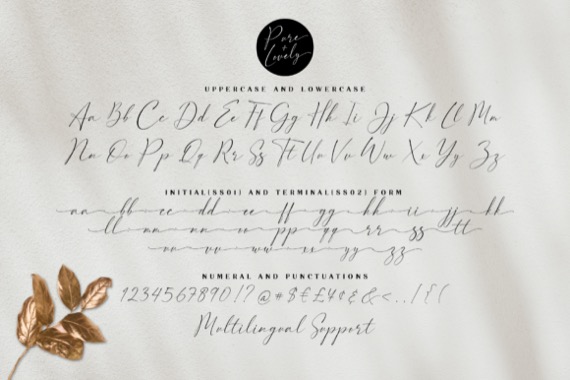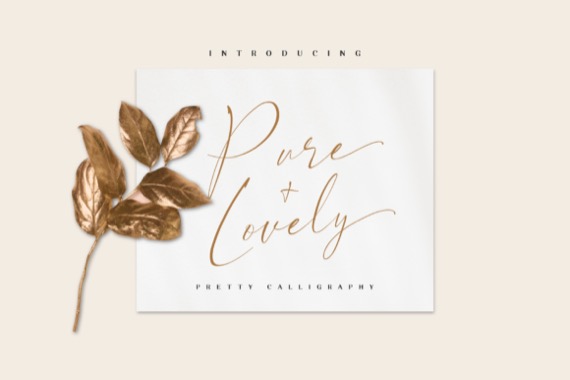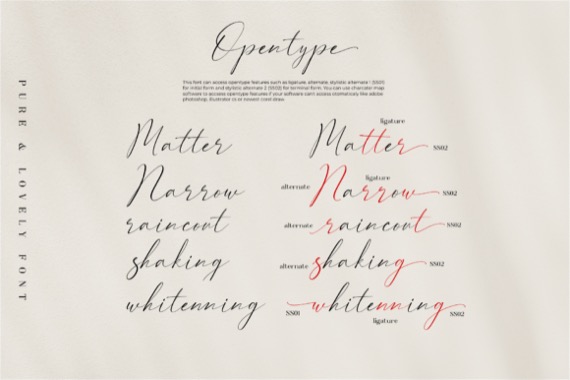
Pure & Lovely is a flowing and thin lettered handwritten script font that was created and released by JavaPep. It maintains its classy calligraphic influences, yet creating a fresh design. This font is PUA encoded which means you can access all of the glyphs and swashes with ease!
Pure & Lovely Handwritten Font
Designer, Publisher: JavaPep